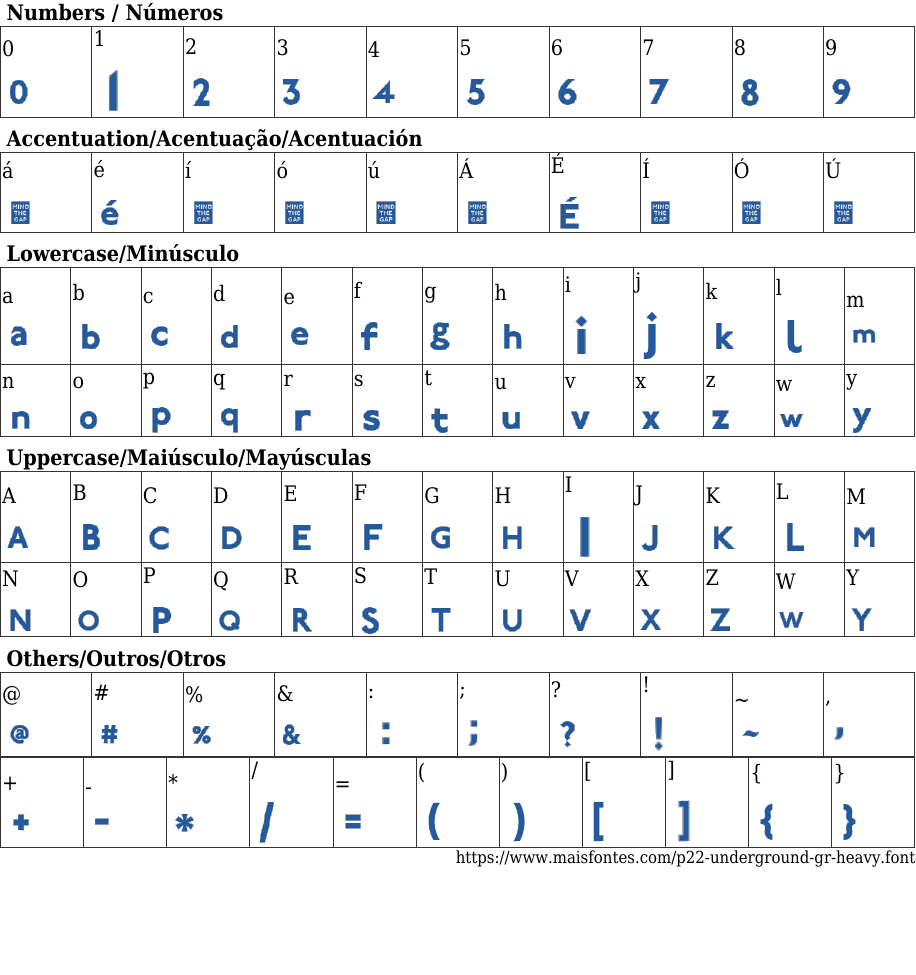
P22 Underground Font Download Free - See how to download p22. Web free download of london tube font. Web they released this typeface with more extended features in 2007 as a p22 johnston underground font. Click now to create a custom image with your own words that you can download. Web p22 underground font free download.
P22 Underground Font Download Free - Web we are providing only the free version of p22 underground. See how to download p22. Web fontsplace is the best place to download p22 underground for free. A sans serif typeface with 18 styles,. Hunt, richard kegler at adobe fonts.
P22 Underground Font Download Free - Web they released this typeface with more extended features in 2007 as a p22 johnston underground font. Web p22 underground font free download. Web we are providing only the free version of p22 underground. A great choice for highlighting your design elements. Download free and premium fonts.
P22 Underground Font Download Free - Hunt, richard kegler at adobe fonts. Web fontsplace is the best place to download p22 underground for free. Web discover the free p22 underground regular font at free font download ! A sans serif typeface with 18 styles,. A great choice for highlighting your design elements.
P22 Underground Font Download Free - Web fontsplace is the best place to download p22 underground for free. Web we are providing only the free version of p22 underground. Basically, it consisting the original london underground pro and. A great choice for highlighting your design elements. Web explore p22 underground designed by edward johnston, paul d.
P22 Underground Font Download Free - Web p22 underground font free download. Web they released this typeface with more extended features in 2007 as a p22 johnston underground font. Web we are providing only the free version of p22 underground. Web discover the free p22 underground regular font at free font download ! A sans serif typeface with 18 styles,.
P22 Underground Font Download Free - Web we are providing only the free version of p22 underground. Web they released this typeface with more extended features in 2007 as a p22 johnston underground font. A sans serif typeface with 18 styles,. Web free download of london tube font. Web fontsplace is the best place to download p22 underground for free.
P22 Underground Font Download Free - Basically, it consisting the original london underground pro and. Download free and premium fonts. Hunt, richard kegler at adobe fonts. Web they released this typeface with more extended features in 2007 as a p22 johnston underground font. Click now to create a custom image with your own words that you can download.
P22 Underground Font Download Free - A sans serif typeface with 18 styles,. A great choice for highlighting your design elements. Web explore p22 underground designed by edward johnston, paul d. Basically, it consisting the original london underground pro and. Installable on pc, mac, linux, ios, and android platforms.
P22 Underground Font Download Free - Web they released this typeface with more extended features in 2007 as a p22 johnston underground font. Web we are providing only the free version of p22 underground. Installable on pc, mac, linux, ios, and android platforms. Web explore p22 underground designed by edward johnston, paul d. Basically, it consisting the original london underground pro and.
P22 Underground Font Download Free - Installable on pc, mac, linux, ios, and android platforms. Web they released this typeface with more extended features in 2007 as a p22 johnston underground font. A great choice for highlighting your design elements. See how to download p22. Web free download of london tube font.
P22 Underground Font Download Free - Web we are providing only the free version of p22 underground. Hunt, richard kegler at adobe fonts. Web explore p22 underground designed by edward johnston, paul d. Installable on pc, mac, linux, ios, and android platforms. Click now to create a custom image with your own words that you can download.